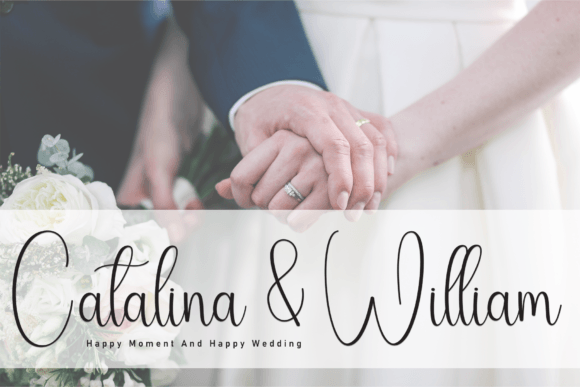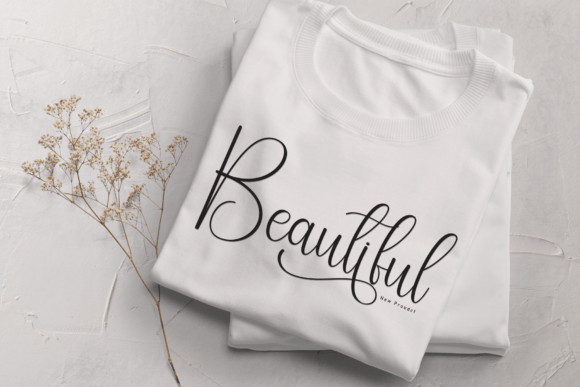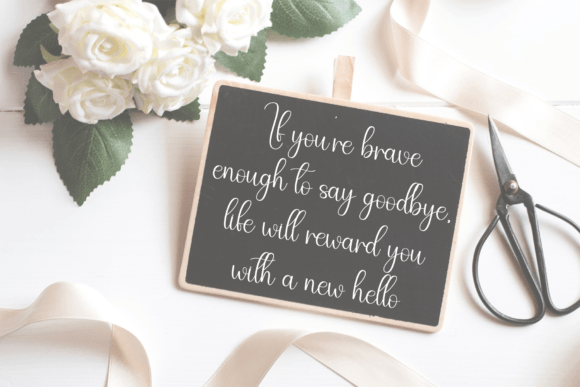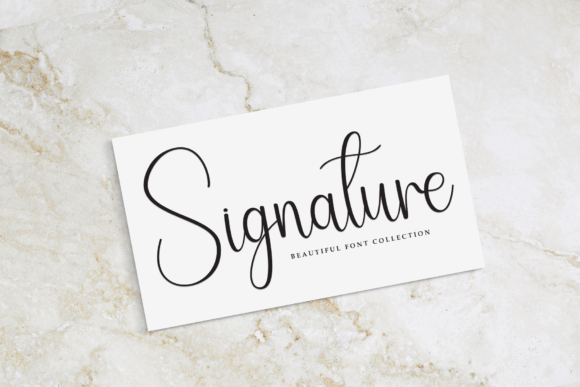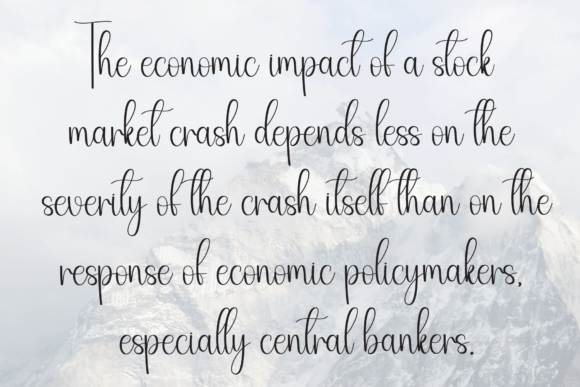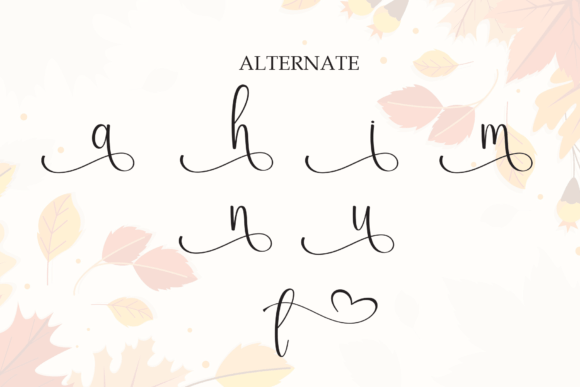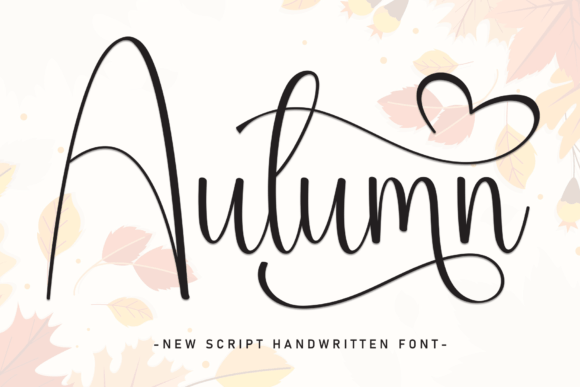
Introducing Autumn Font: Add a Touch of Whimsy to Your Designs
Are you looking for a font that can add a dash of sweetness and friendliness to your designs? Look no further than Autumn Font! This beautiful handwritten display font is perfect for creating eye-catching wedding invitations, cards, and other designs that require a fun and playful touch.
What Makes Autumn Font Special?
Autumn Font is a unique and charming font that is sure to capture the hearts of designers and crafters alike. Its sweet and friendly vibe makes it an ideal choice for a variety of design projects, from romantic wedding invitations to fun and playful greeting cards. The font’s handwritten style gives it a personal and approachable feel, making it perfect for designs that require a touch of warmth and personality.
Characteristics of Autumn Font
So, what makes Autumn Font so special? Here are a few of its key characteristics:
- Cute and Fun: Autumn Font is a playful and whimsical font that is sure to add a touch of fun to your designs.
- Handwritten Style: The font’s handwritten style gives it a personal and approachable feel, making it perfect for designs that require a touch of warmth and personality.
- Sweet and Friendly: Autumn Font has a sweet and friendly vibe that makes it perfect for creating eye-catching wedding invitations, cards, and other designs.
- Display Font: Autumn Font is a display font, making it perfect for headlines, titles, and other design elements that require a bold and eye-catching font.
Uses for Autumn Font
Autumn Font is a versatile font that can be used for a variety of design projects, including:
- Wedding Invitations: The font’s sweet and romantic vibe makes it perfect for creating beautiful and eye-catching wedding invitations.
- Greeting Cards: Autumn Font is ideal for creating fun and playful greeting cards for special occasions, such as birthdays, holidays, and more.
- Party Invitations: The font’s playful and whimsical style makes it perfect for creating eye-catching party invitations for kids’ parties, baby showers, and more.
- Social Media Graphics: Autumn Font can be used to create eye-catching social media graphics, such as Facebook posts, Instagram stories, and more.
Why Choose Autumn Font?
So, why choose Autumn Font for your design projects? Here are a few reasons:
- Unique and Eye-Catching: Autumn Font is a unique and eye-catching font that is sure to make your designs stand out.
- Easy to Read: The font is easy to read, making it perfect for designs that require a clear and legible font.
- Versatile: Autumn Font is a versatile font that can be used for a variety of design projects, from wedding invitations to social media graphics.
- Fun and Playful: The font’s playful and whimsical style makes it perfect for designs that require a fun and playful touch.
Tips for Using Autumn Font
Here are a few tips for using Autumn Font in your design projects:
- Use it as a Display Font: Autumn Font is a display font, so use it as a headline or title font to add a touch of whimsy to your designs.
- Pair it with Other Fonts: Autumn Font can be paired with other fonts to create a unique and eye-catching design.
- Experiment with Colors: The font looks great in a variety of colors, so experiment with different colors to find the one that works best for your design.
- Use it for Kids’ Designs: Autumn Font is perfect for designs for kids, such as party invitations, children’s books, and more.
Autumn Font is a beautiful and unique handwritten display font that is perfect for adding a touch of whimsy to your designs. Its sweet and friendly vibe makes it ideal for creating eye-catching wedding invitations, cards, and other designs that require a fun and playful touch. With its versatility, ease of use, and eye-catching style, Autumn Font is a great choice for designers and crafters alike.